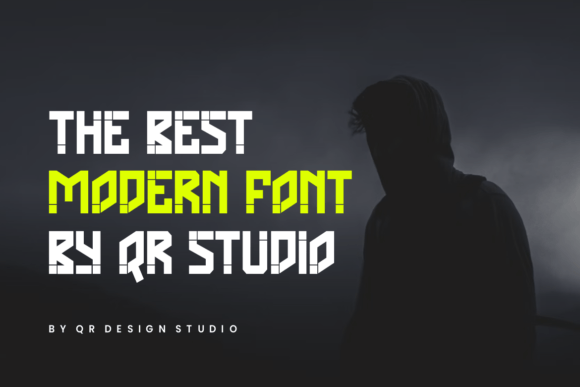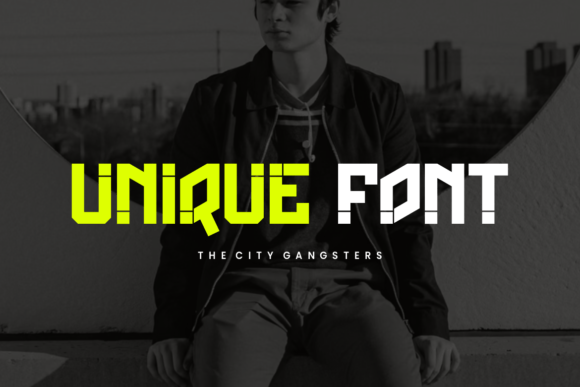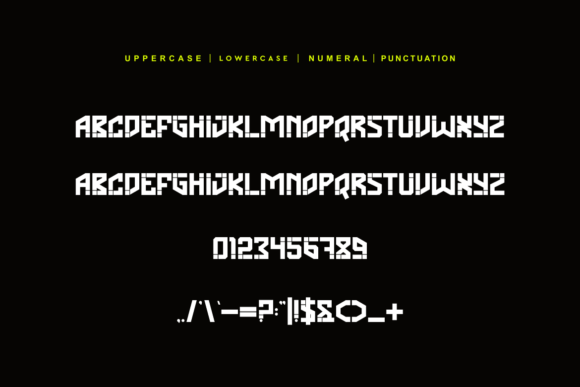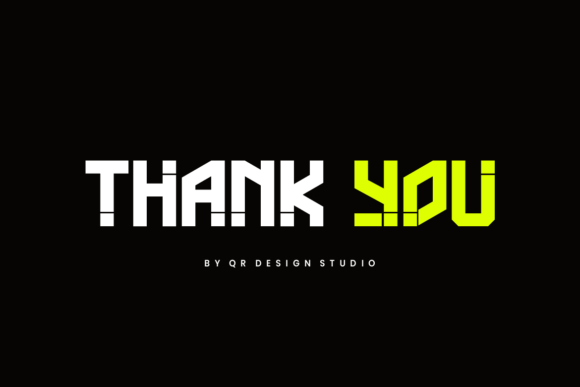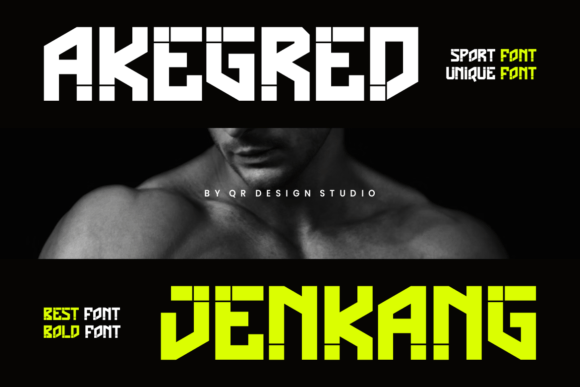
Discover the Uniqueness of Akegred Jenkang Font: Elevate Your Designs to New Heights
Akegred Jenkang is an incredibly unique decorative font that has been masterfully designed to become a true favorite among designers and crafters. With its distinctive style and flair, this font has the potential to bring each of your creative ideas to the highest level, setting your designs apart from the rest. In this article, we’ll dive into the world of Akegred Jenkang, exploring its features, benefits, and uses, and provide you with valuable insights on how to make the most of this exceptional font.
The Story Behind Akegred Jenkang
Akegred Jenkang is more than just a font – it’s a work of art. Created with precision and passion, this decorative font boasts an unmistakable charm that can instantly elevate your designs. Whether you’re working on a branding project, crafting a logo, or creating engaging content, Akegred Jenkang is the perfect companion to help you achieve your creative goals.
Key Features of Akegred Jenkang
- Unique Decorative Style: Akegred Jenkang features an eye-catching decorative style that adds a touch of elegance and sophistication to any design.
- High Versatility: This font is incredibly versatile, making it suitable for a wide range of design projects, from logos and branding to packaging and digital content.
- Easy to Read: Despite its decorative nature, Akegred Jenkang remains highly legible, ensuring that your message is conveyed clearly and effectively.
- Scalable: This font is designed to perform well at various sizes, from small captions to large headlines.
Benefits of Using Akegred Jenkang
So, what makes Akegred Jenkang an attractive choice for designers and crafters? Here are just a few benefits you can expect:
- Stand Out from the Crowd: With Akegred Jenkang, you can create designs that are truly one-of-a-kind, setting you apart from competitors and capturing the attention of your audience.
- Boost Creativity: This font’s unique style can inspire new ideas and help you approach your designs from fresh perspectives.
- Time-Saving: Akegred Jenkang is easy to use and integrate into your projects, saving you time and effort in the design process.
Tips for Using Akegred Jenkang Effectively
To get the most out of Akegred Jenkang, here are some expert tips to keep in mind:
- Pair with Neutral Fonts: Combine Akegred Jenkang with neutral fonts to create visual interest and balance in your designs.
- Experiment with Colors: Don’t be afraid to try out different color schemes and combinations to find the perfect match for your design.
- Use for Headlines and Titles: Akegred Jenkang is perfect for headlines and titles, where its decorative style can make a lasting impression.
Who Can Benefit from Akegred Jenkang?
Akegred Jenkang is an excellent choice for a variety of designers and crafters, including:
- Graphic Designers: Add a touch of elegance and sophistication to your branding, logos, and marketing materials.
- Digital Artists: Use Akegred Jenkang to create stunning digital art, illustrations, and graphics.
- Crafters: Perfect for crafters who want to add a personal touch to their projects, such as handmade cards, scrapbooking, and DIY crafts.
Akegred Jenkang is an exceptional decorative font that can elevate your designs to new heights. With its unique style, versatility, and ease of use, this font is sure to become a favorite among designers and crafters. Whether you’re looking to create stunning branding, captivating content, or beautiful art, Akegred Jenkang is the perfect companion to help you achieve your creative goals. So why wait? Discover the power of Akegred Jenkang and take your designs to the next level!